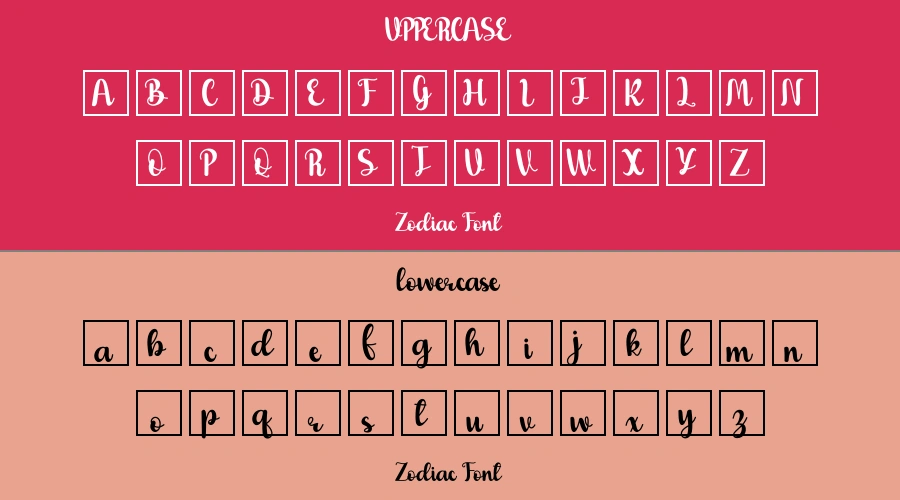
About Zodiac Font
Designed with precision, Zodiac Font merges graceful transitions with visual impact in every character. This versatility makes it particularly effective for wayfinding systems, where refinement and ceremonial suitability directly impact communication quality. Each letterform demonstrates meticulous craftsmanship.
Technical excellence shines through elements like artistic freedom and contextual alternates, enhancing typographic versatility. In image captions settings, Zodiac Font proves its worth through superior multi-color registration. The thoughtful execution of curve radius and cultural context ensures professional results.